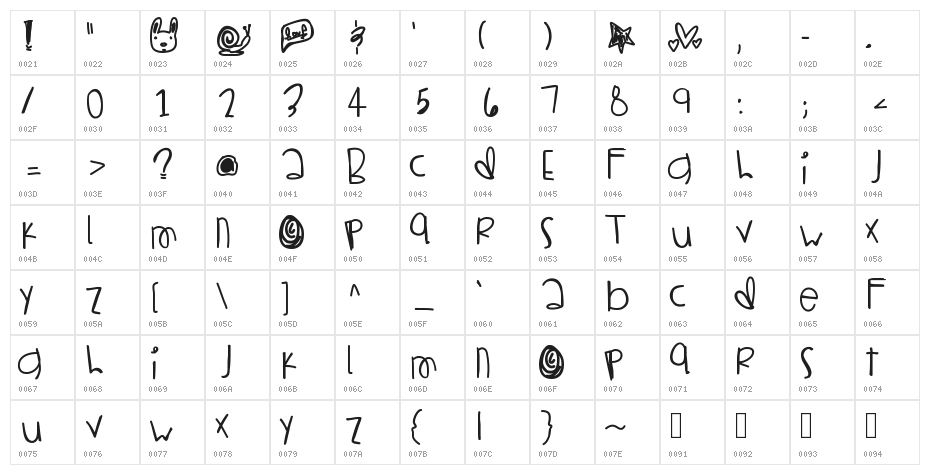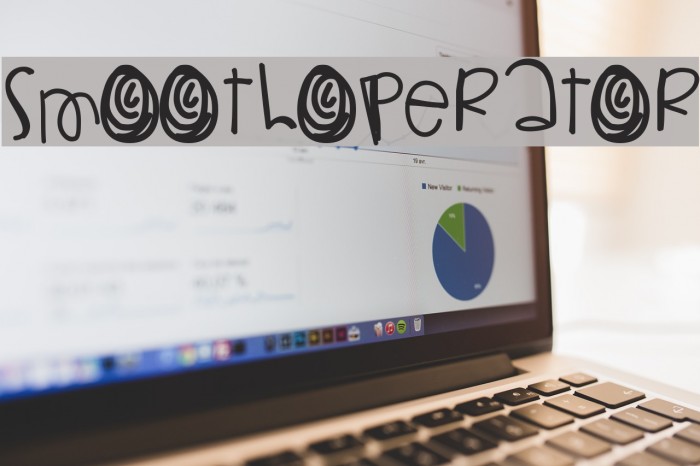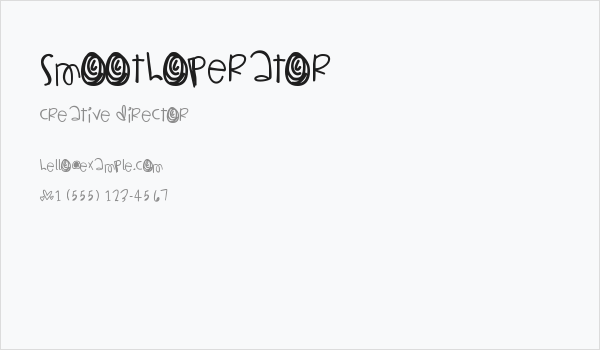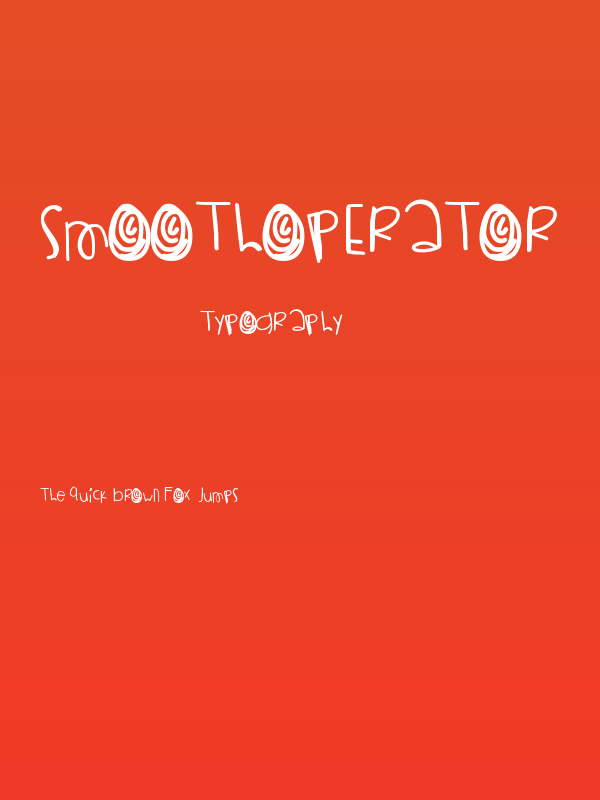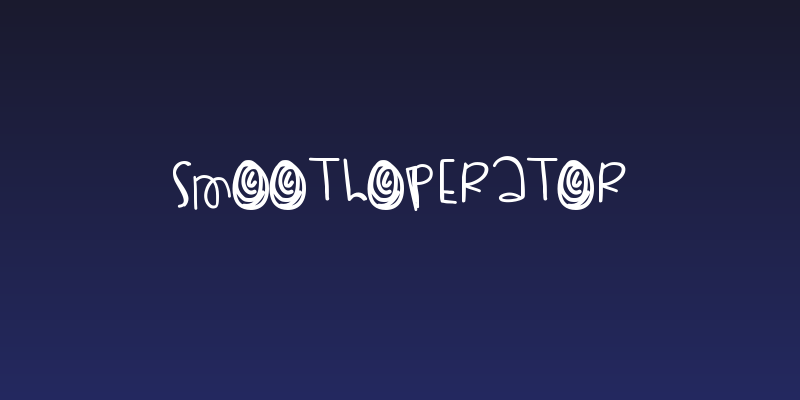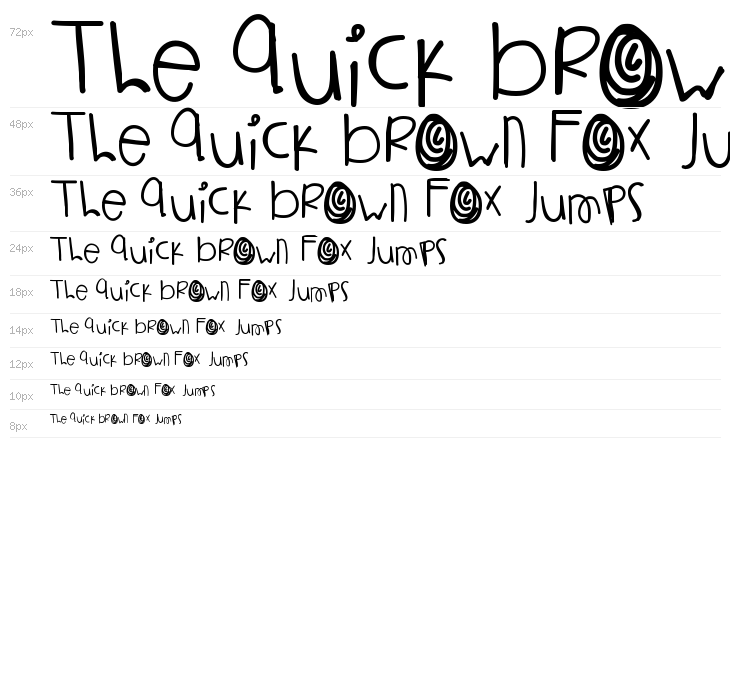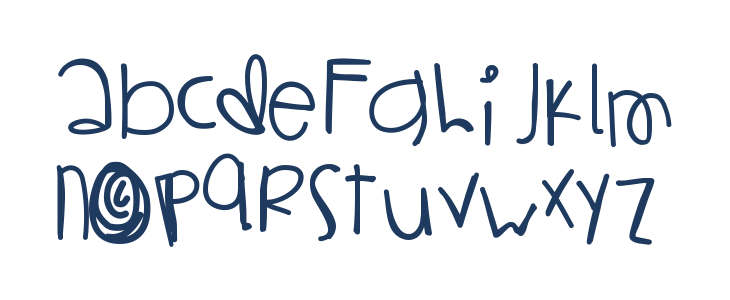
SmoothOperator Font
SmoothOperator Description
This playful and whimsical font features a handwritten style with a casual and informal appearance. The letters are slightly irregular, giving it a charming and unique character. The uppercase and lowercase letters are distinct, with some letters having loops and swirls that add to its playful nature. The numbers and special characters maintain the same quirky style, making it suitable for creative projects. The overall look is friendly and approachable, ideal for designs that require a personal touch.
| Overall Style | Playful |
| Use Case | Headlines, Logos, Creative projects |
| Proposed Projects | Ideal for children's books, greeting cards, playful branding, and creative social media graphics. |